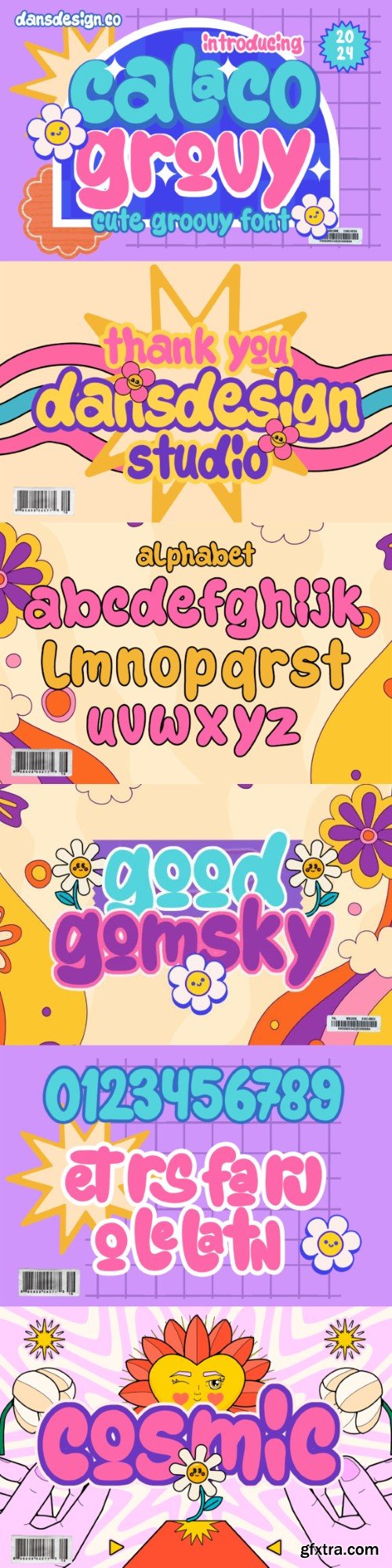
卡尔科格維字體
Calaco Grovy is a cool and modern graffiti-style display font. It’s perfect for making your designs stand out with its bold and edgy vibe. Whether you’re creating posters, logos, or street art, Calaco Grovy adds a funky touch to your projects.